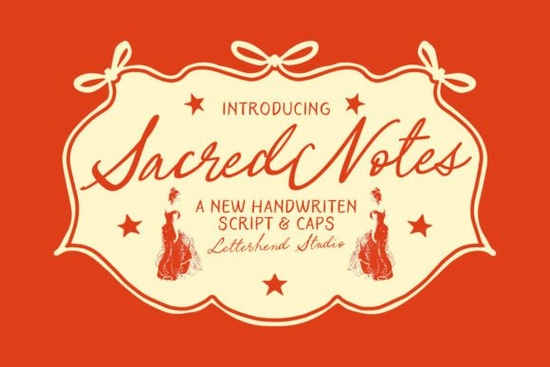
If you're looking for a handwritten font that blends vintage charm with modern versatility, the Sacred Notes Duo Font is worth a closer look. It pairs a graceful, flowing script with clean uppercase sans-serif letters offering both personality and balance in one package. Whether you’re designing wedding invitations, custom packaging, or greeting cards with a nostalgic touch, this duo gives you two complementary styles without needing to mix fonts from different sources.
What makes Sacred Notes stand out among script fonts?
Many script fonts lean heavily into either elegance or playfulness but rarely both. Sacred Notes strikes a sweet spot: its lowercase script feels intimate and hand-lettered, like notes passed between friends or love letters tucked into old books. The uppercase companion font, meanwhile, adds structure and clarity without clashing. This contrast works especially well for layered designs where you want headings to pop while body text (or short phrases) retain warmth.
For small business owners creating product labels or crafters making printable wall art, having two coordinated typefaces in one download simplifies workflow. You won’t need to spend time testing pairings or adjusting spacing between mismatched fonts.
How can designers use this font effectively?
The key to using Sacred Notes well lies in understanding its mood. It’s not a bold, attention-grabbing display font it’s subtle, romantic, and slightly dreamy. That makes it ideal for:
- Wedding stationery: Think save-the-dates, place cards, or thank-you notes.
- Handmade goods branding: Soap labels, candle packaging, or boutique bakery tags.
- Vintage-inspired digital products: Printable journals, scrapbook elements, or Etsy shop banners.
- Greeting cards: Especially for occasions like anniversaries, baby showers, or heartfelt messages.
Because of its delicate strokes, avoid using it at very small sizes or on busy backgrounds. Pair it with plenty of white space or soft textures like watercolor washes or linen patterns to let its details shine.
How does it compare to other popular script fonts?
If you’ve browsed Creative Fabrica’s script collection, you might already know fonts like Honeymoon, which leans more into calligraphic flourishes, or Camila Bryan, known for its bouncy, friendly rhythm. Sacred Notes sits somewhere in between less formal than Honeymoon, but more refined than some playful scripts like Monday.
For those who appreciate structured elegance with a personal touch, it also differs from highly ornate options like Elemental Calligraphy. And if you enjoy the balanced duo approach of Sacred Notes, you’ll find similar thoughtful pairings in collections like the Honeymoon font family, which also offers complementary styles.
Who is this font best suited for?
Creative hobbyists making personalized gifts will appreciate how easy it is to create cohesive designs without advanced typography skills. Print-on-demand sellers can use it for quote-based mugs, tote bags, or wall art targeting customers who love cottagecore, slow living, or romantic aesthetics. Small businesses in the wedding, floral, or artisan food sectors may find it fits their brand voice better than generic sans-serifs or overly dramatic scripts.
It’s also beginner-friendly: most versions include standard ligatures and alternate characters accessible through design software like Adobe Illustrator or even Canva (with OpenType support), so you don’t need to hunt for extras.
Before you download: a quick checklist
- ✅ Confirm your project calls for a soft, nostalgic tone not high-energy or corporate.
- ✅ Check that your design has enough negative space to showcase the script’s fine lines.
- ✅ Remember: the uppercase sans-serif works best for short headlines or accents, not long paragraphs.
If your next project needs a font that feels both timeless and tender, Sacred Notes Duo offers a harmonious blend of expression and clarity without overcomplicating your creative process.